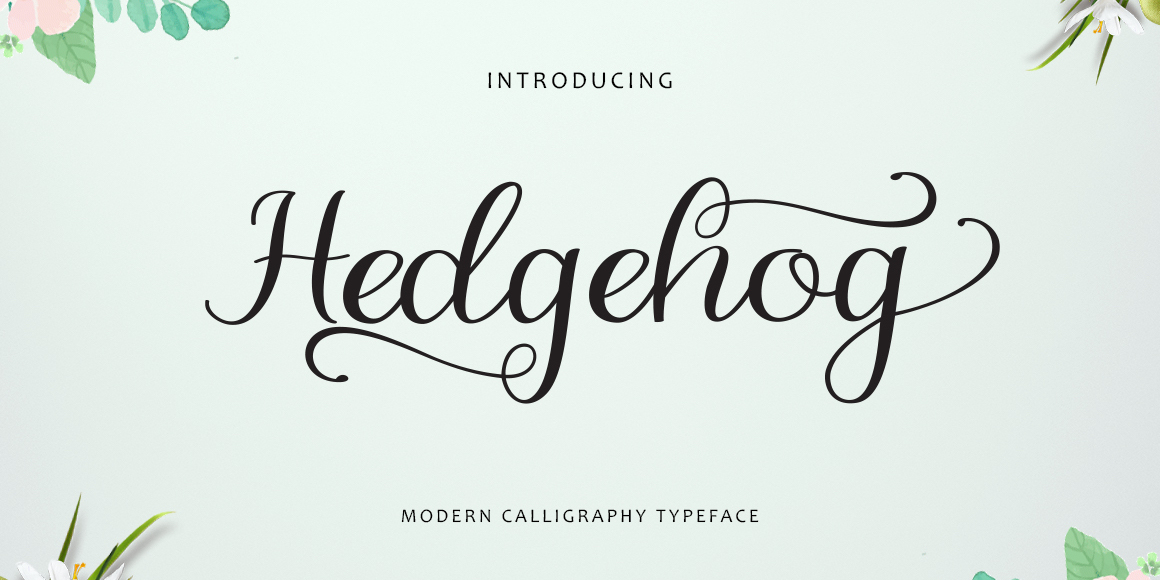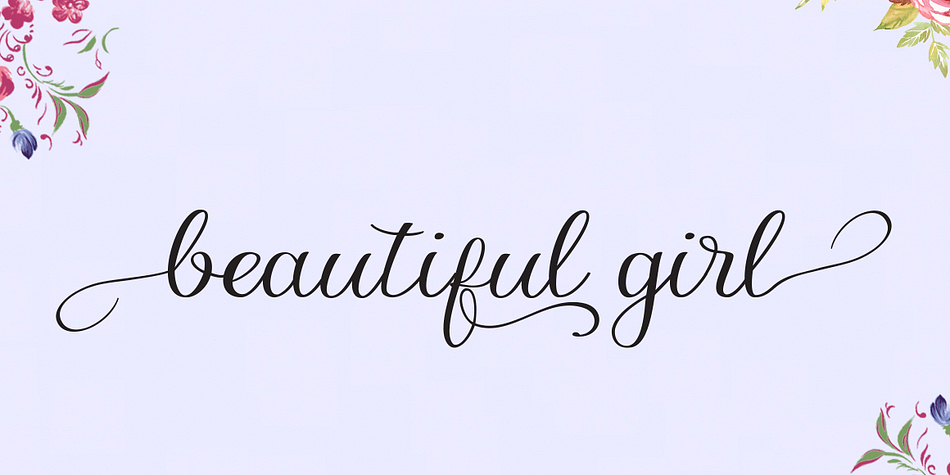
Hedgehog is a script font published by pollem.Co.
Hedgehog is a script font full of character. It would be a wonderful addition to any wedding design. It is also well suited to make labels and any other business supply. Use it to create unique designs.
The alternative characters in this font were divided into several OpenType features such as Stylistic Alternates, Stylistic and Ligature. The OpenType features can be accessed by using OpenType savvy programs such as Adobe Illustrator and Adobe InDesign.